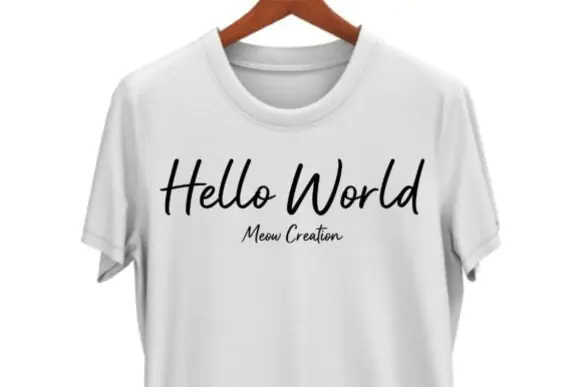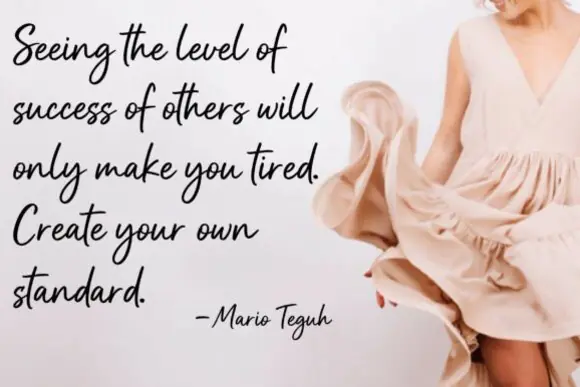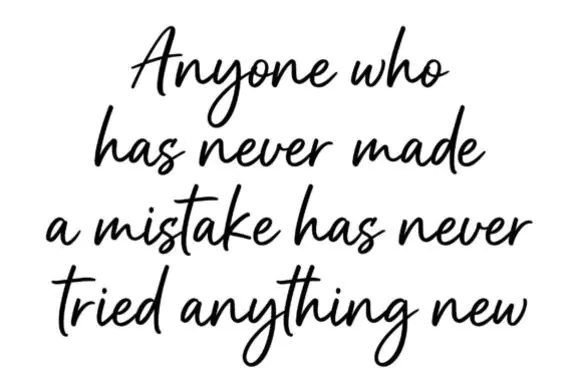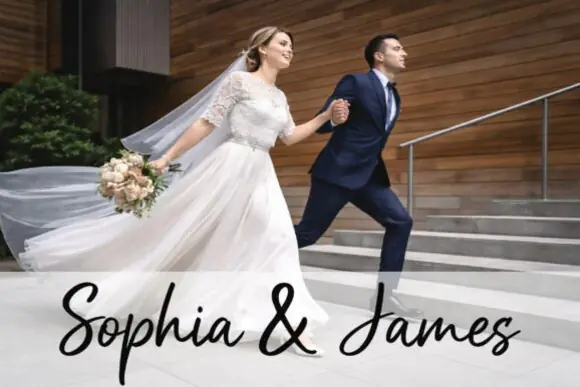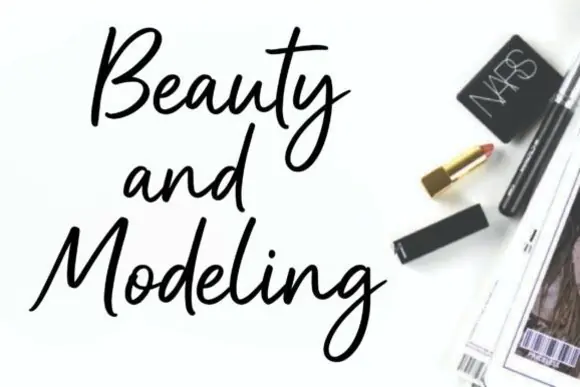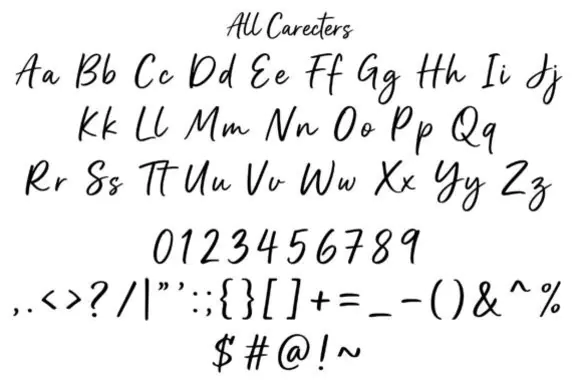
Add a warm, friendly, and natural handwritten touch to your designs with Casual Handwriting Font, a simple script typeface created with smooth strokes, soft curves, and a relaxed everyday style. This font is perfect for projects that need a personal, clean, and approachable look.
Casual Handwriting works beautifully for quote designs, t-shirts, social media graphics, invitations, greeting cards, branding projects, labels, stickers, posters, and printable designs. Its balanced handwritten style makes it easy to read while still giving your text a soft, handmade feel.
Whether you are creating lifestyle graphics, inspirational quotes, casual apparel designs, modern invitations, small business branding, or digital products, this font helps your words feel more personal, simple, and expressive.